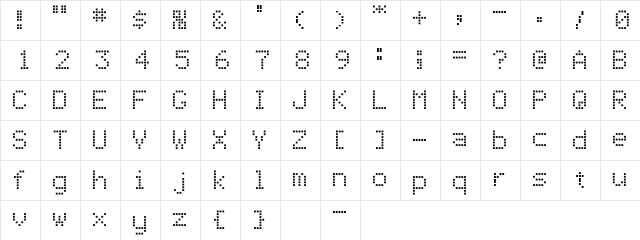
Ten Regular E.
Design Context for Ten Typeface
Ten takes a measured approach to typography — its balanced proportions and neutral character make it a reliable workhorse for both digital and print work.